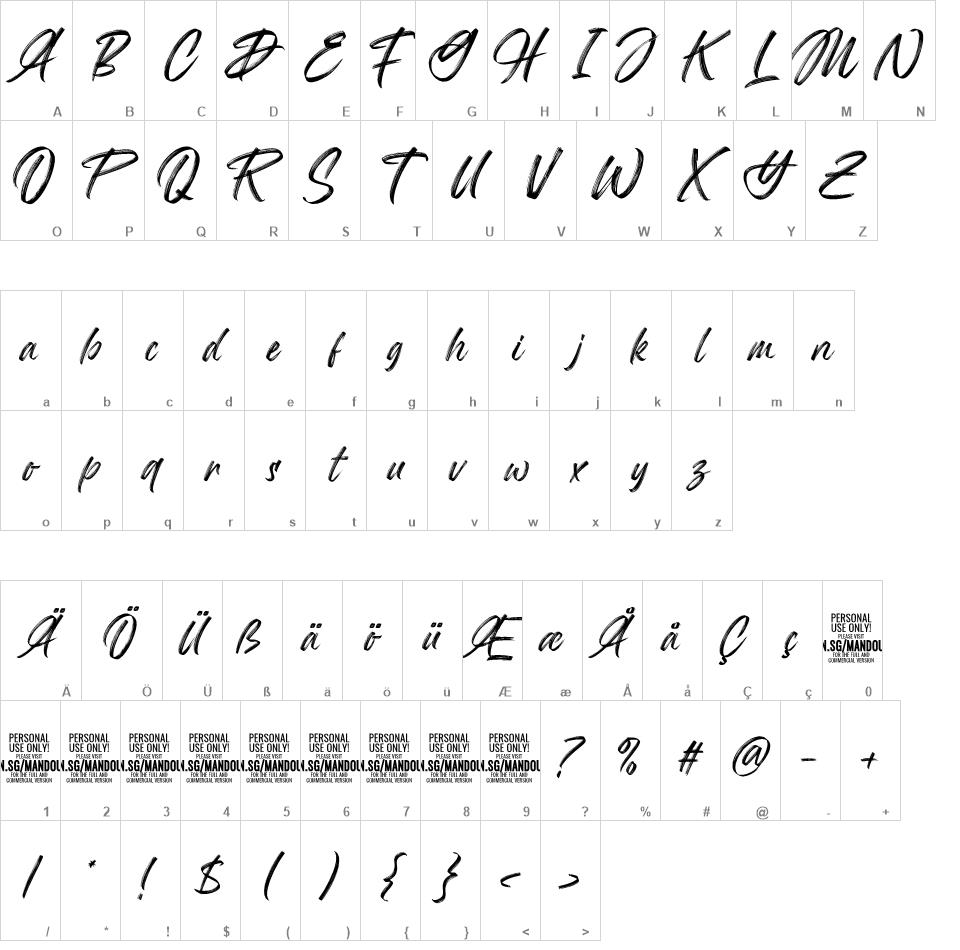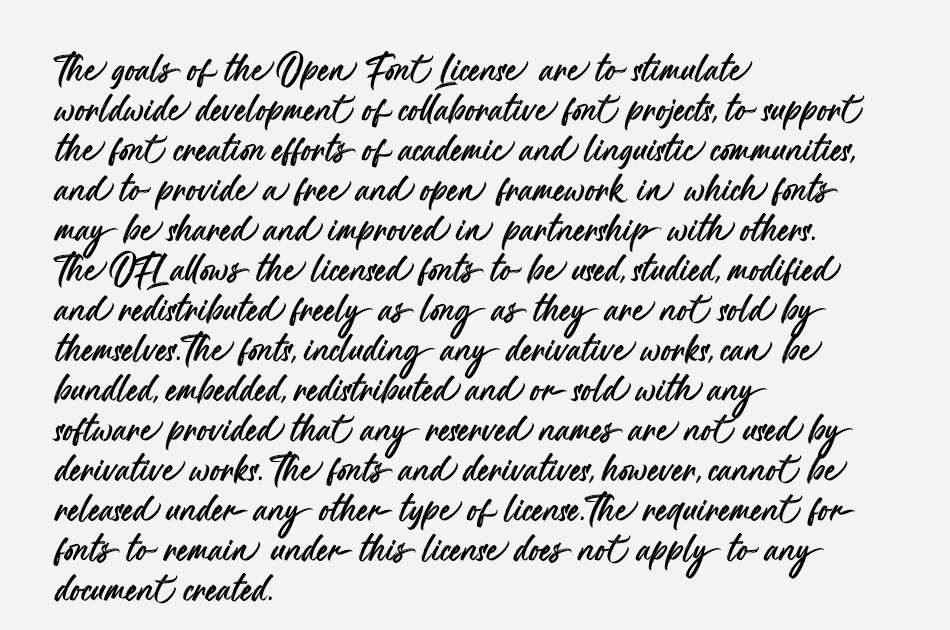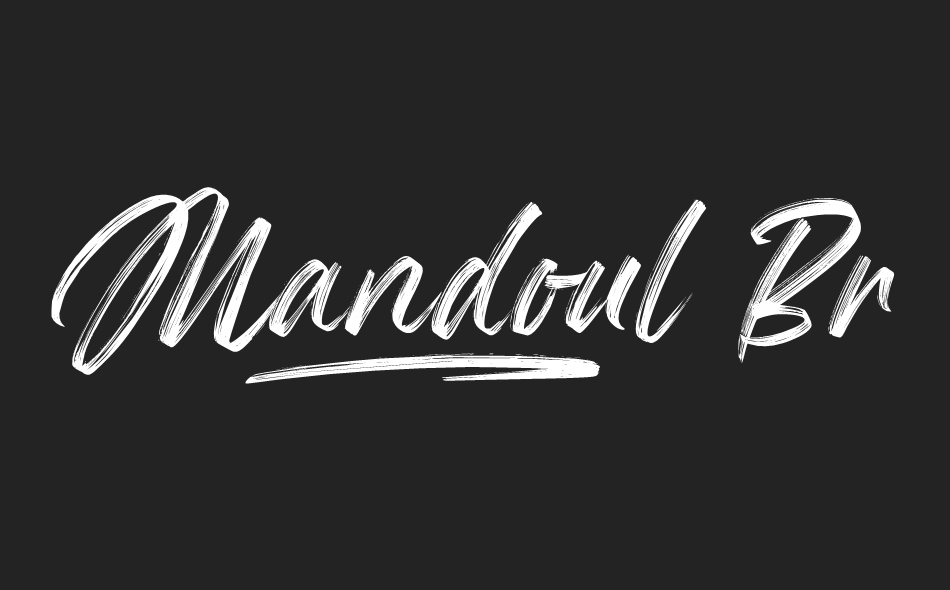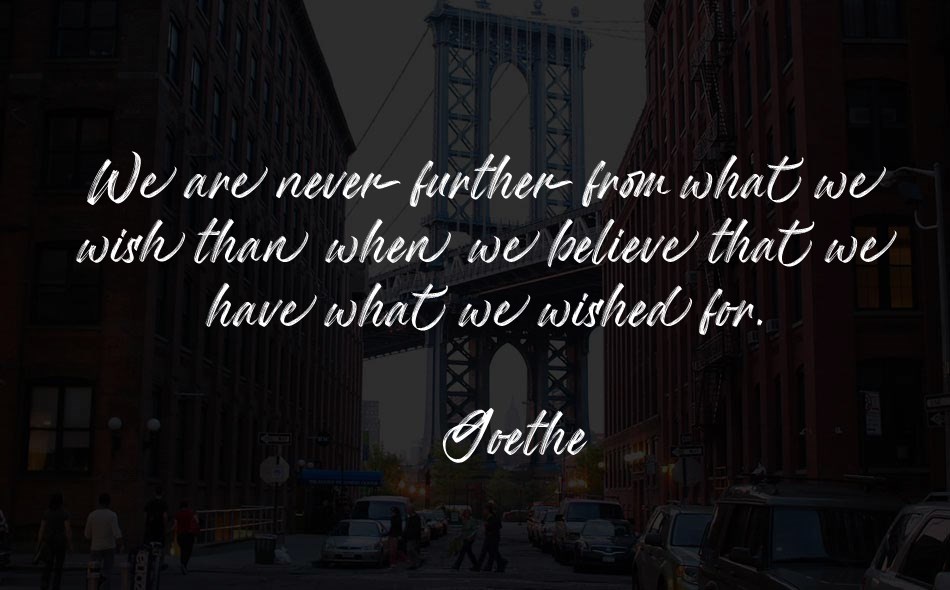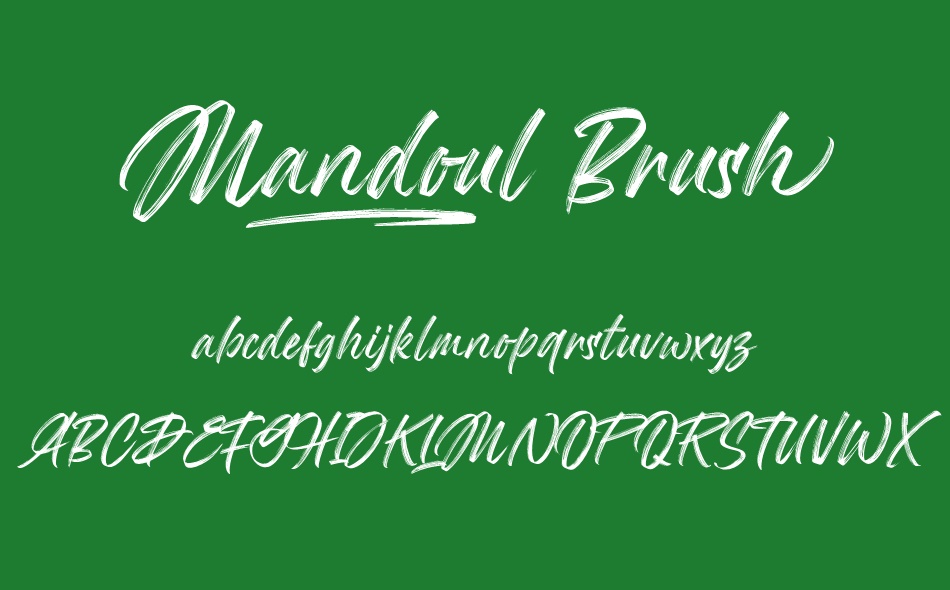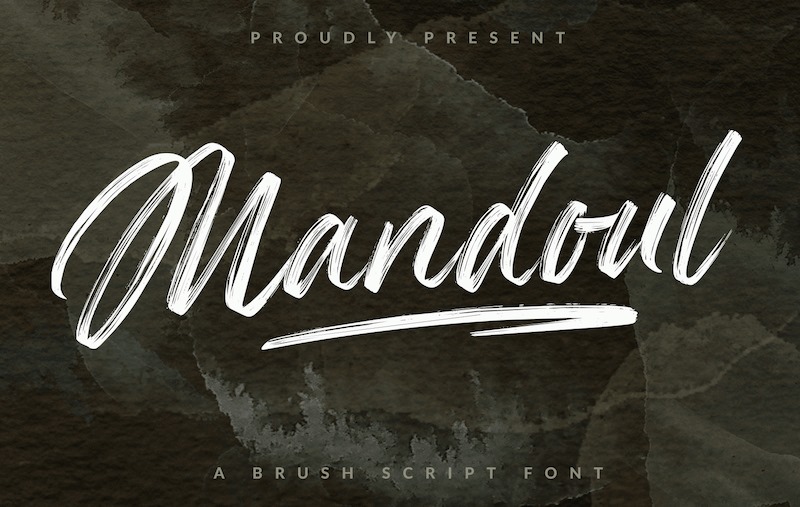
Mandoul Brush font
Use underscore _ anywhere in a word to create a swash.
Example: Hand_script
Use multiple underscores for different swashes.
Example: Bea__utiful
Mandoul Brush is a supercharged, street-wise calligraphy typeface bursting with energy.
With extra attention to quick letterforms and sharp details, this brush typeface turns any graphic project into a vivid and optimistic work. Its handwritten paintbrush strokes are created with real brush and paint, ensuring a genuine and truly artistic typographic design.
It is provided as Regular and Italic.
Mandoul is built with advanced OpenType functionality and has a guaranteed top-notch quality, containing stylistic and contextual alternates, ligatures and more features; all to give you full control and customizability. It has extensive lingual support, covering all Latin-based languages, from North Europe to South Africa, from America to South-East Asia. It contains all characters and symbols you'll ever need, including all punctuation and numbers.